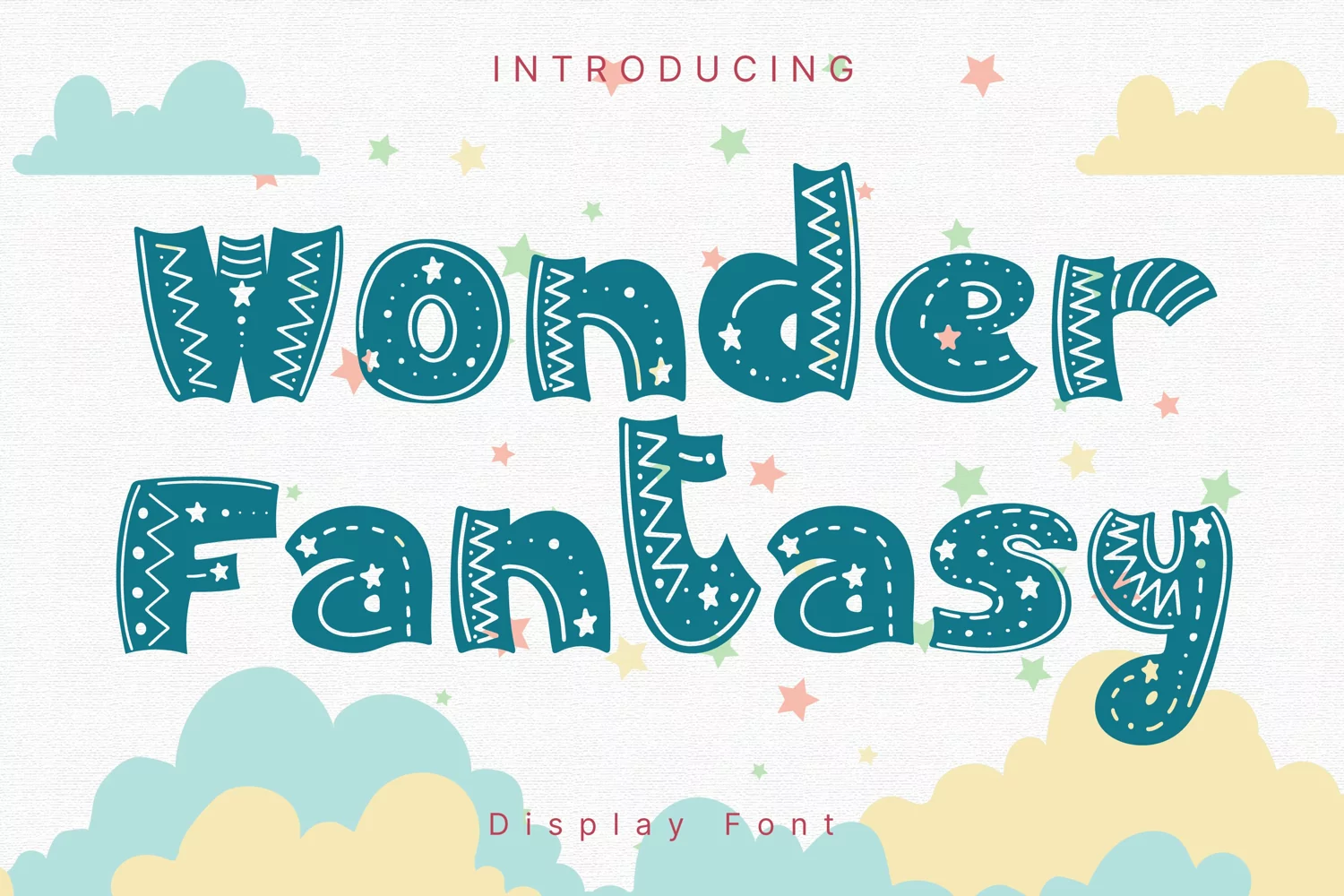
Wonder Fantasy Style
WonderFantasy
Wonder Fantasy Style is a whimsical and clean handwritten font. It can easily be matched to an incredibly large set of projects, so add it to your creative ideas and notice how it makes them stand out!